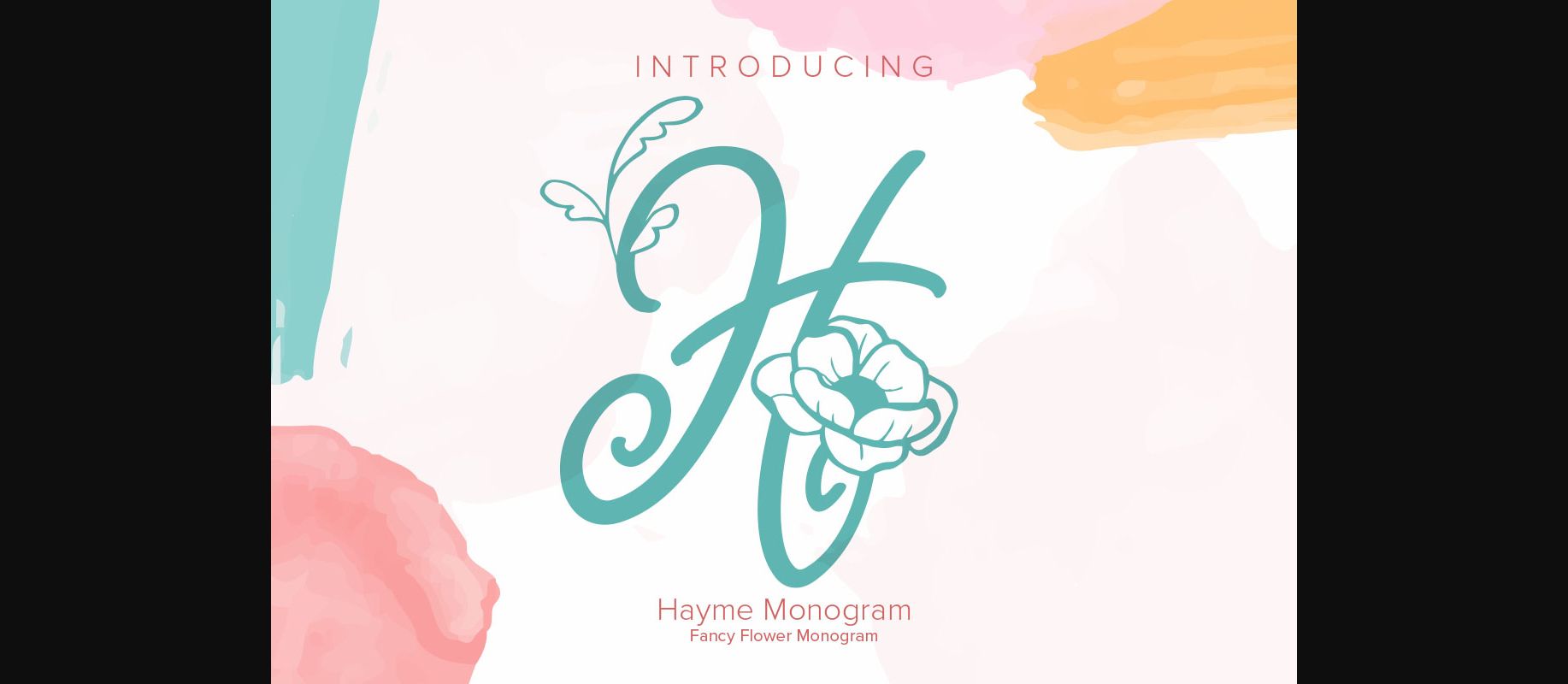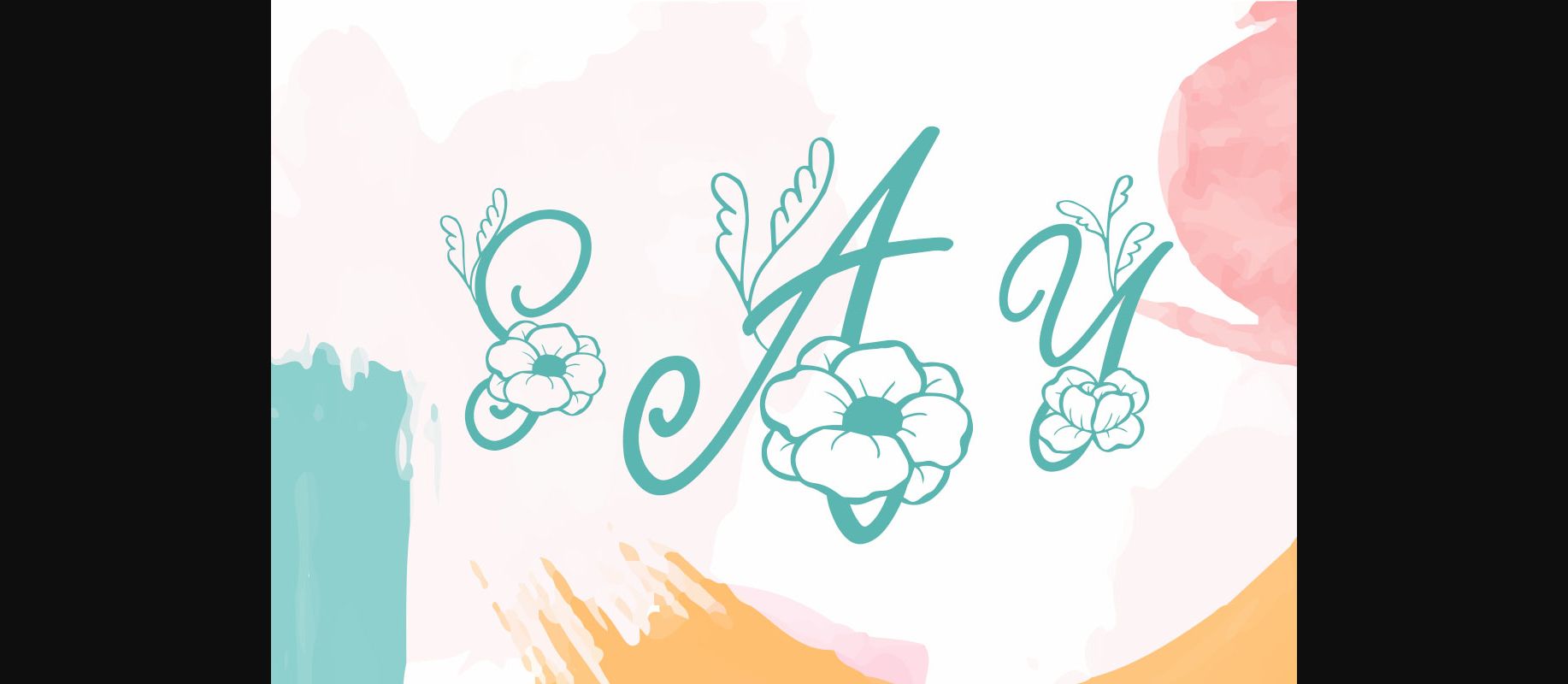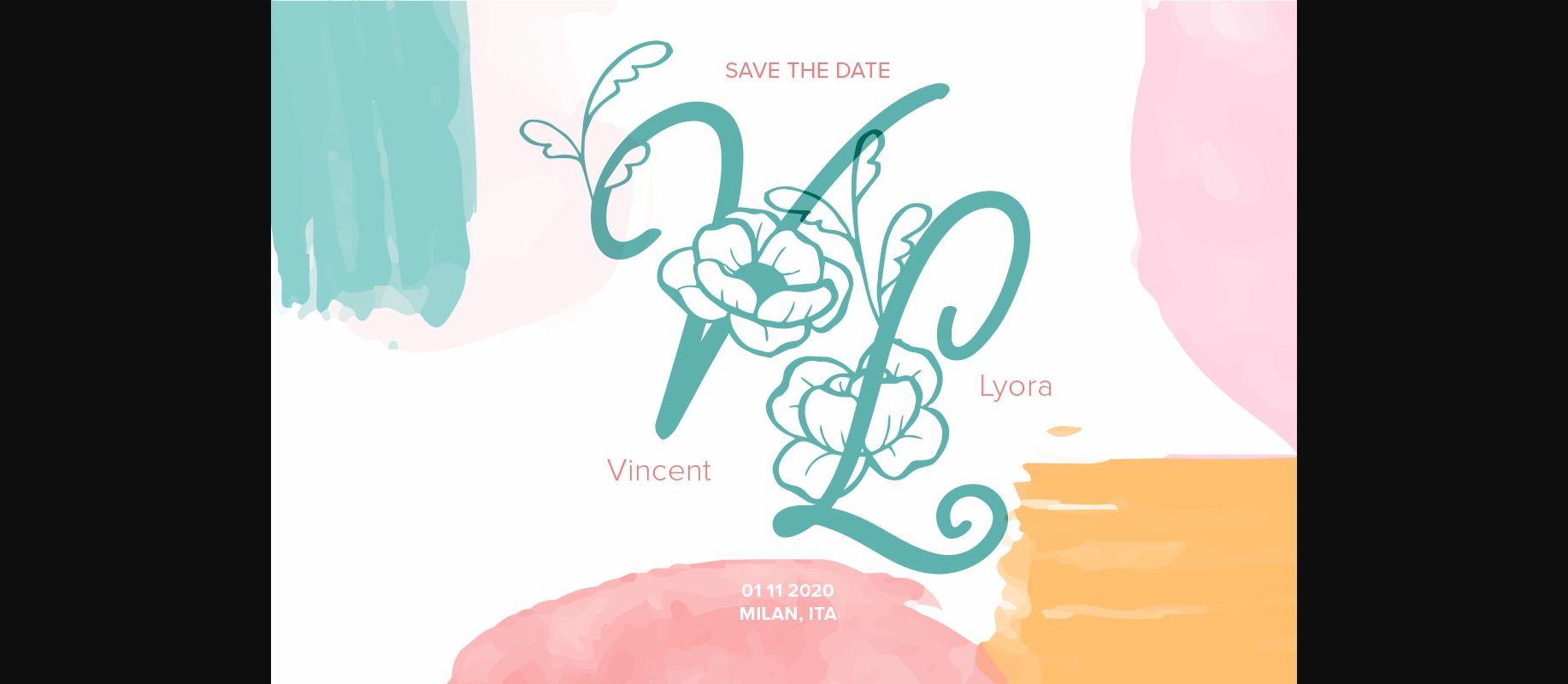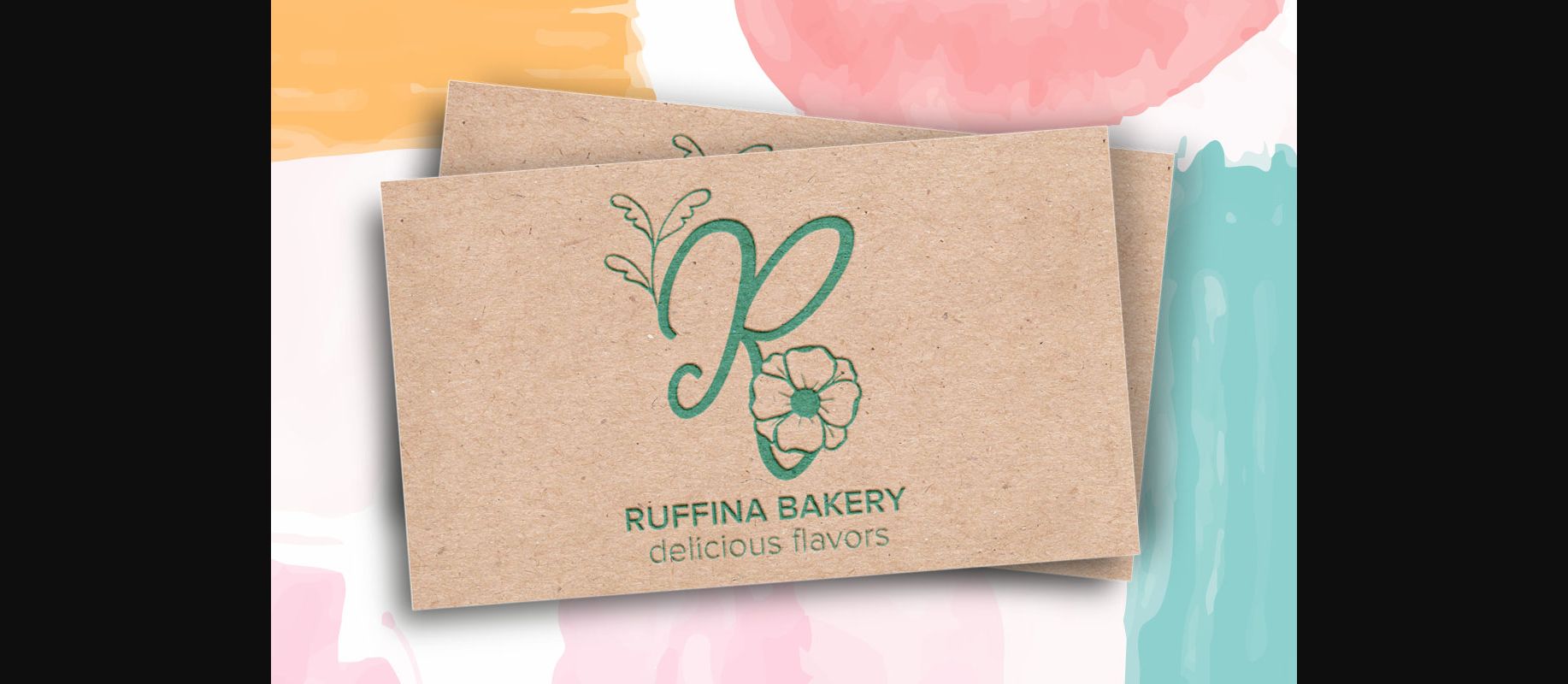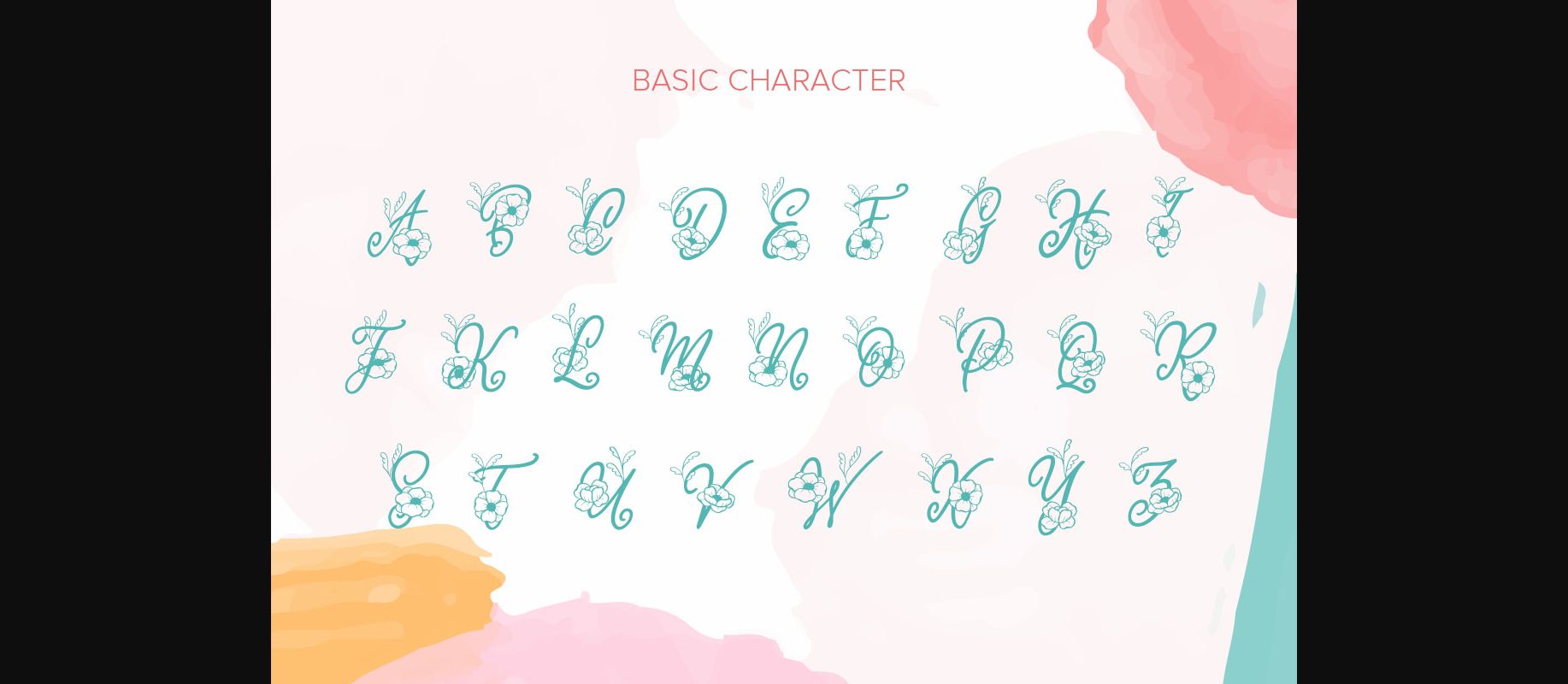
Hayme Monogram Font
About Hayme Monogram Font
Hayme Monogram is a lovely decorative font, featuring delicate flowers`. Fall in love with its authentic feel and use it to create gorgeous wedding invitations, beautiful stationary art, eye-catching social media posts, and cute greeting cards.